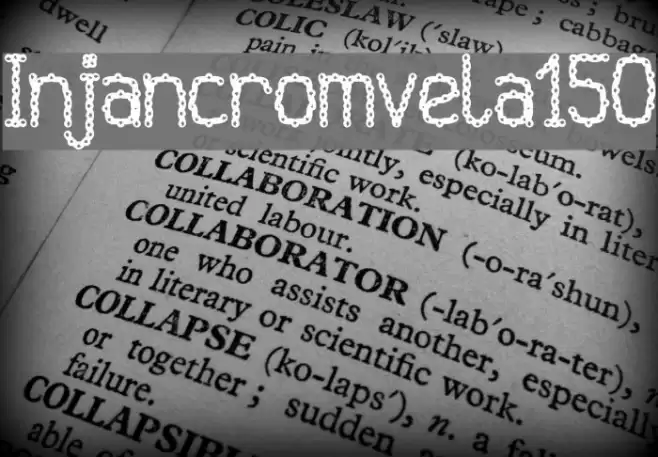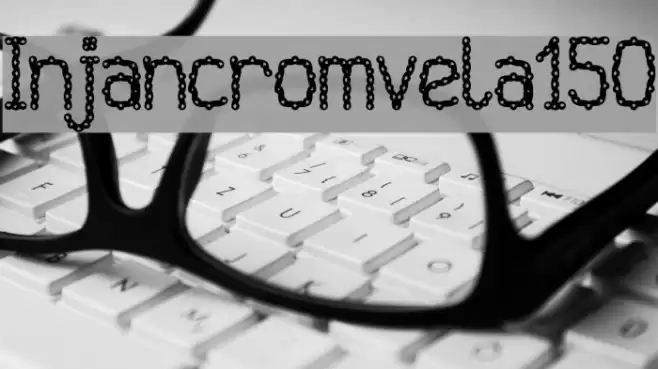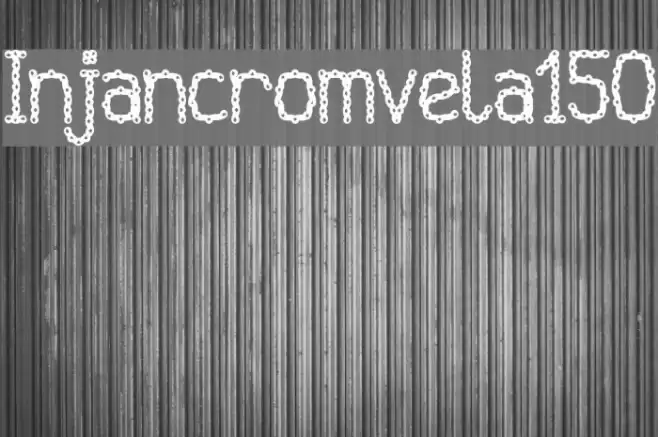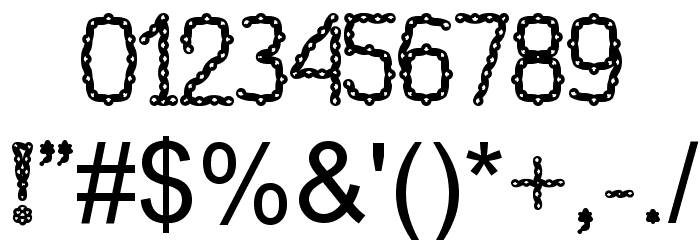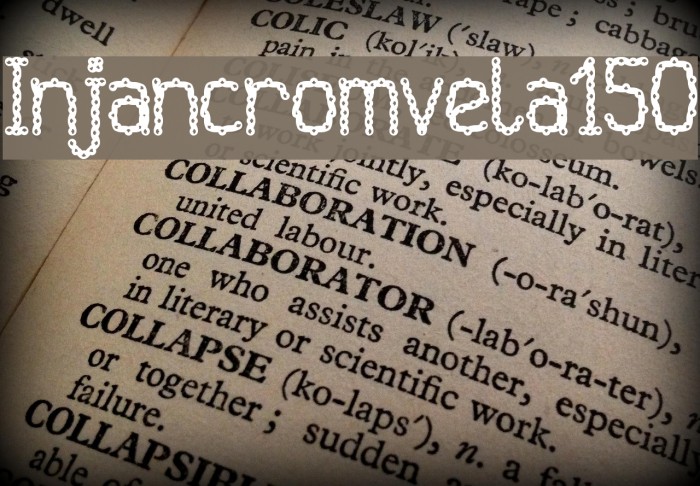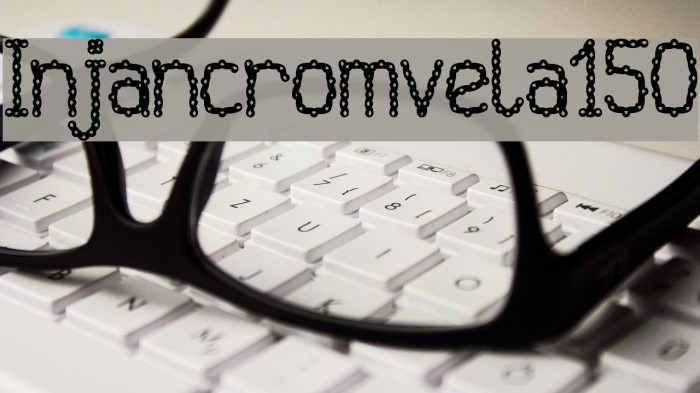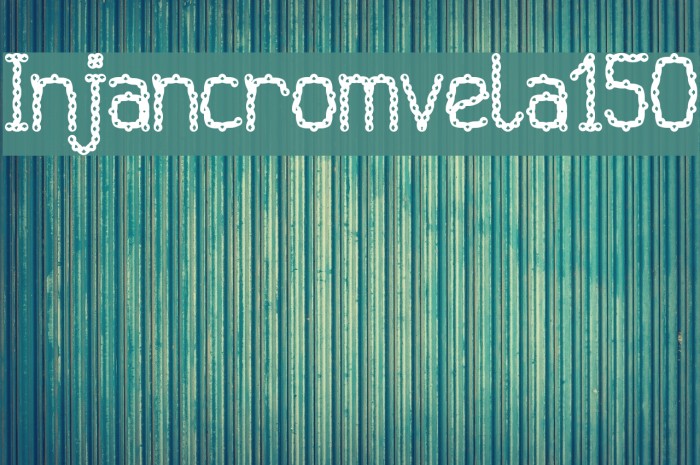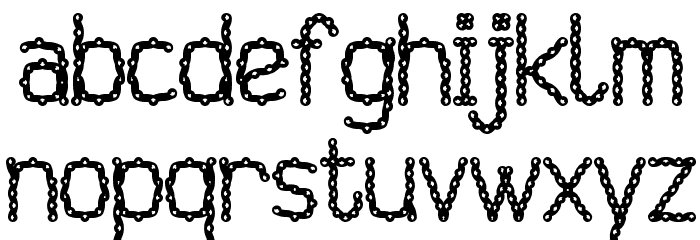
Injancromvela150 Font
Injancromvela150 Description
This font features a unique and playful design, characterized by a series of interconnected circles forming each letter and number. The style is reminiscent of a chain or beaded pattern, giving it a distinctive and decorative appearance. The uppercase and lowercase letters maintain a consistent structure, with rounded edges and uniform spacing. The numerals and special characters follow the same design principle, ensuring a cohesive look across all glyphs. This font's creative and artistic style makes it stand out, suitable for projects that require a fun and engaging visual element.
A playful, chain-like decorative font with interconnected circular patterns from Uncategorized fonts.
- Proposed Projects: Ideal for children's book covers, playful branding, party invitations, and creative posters.